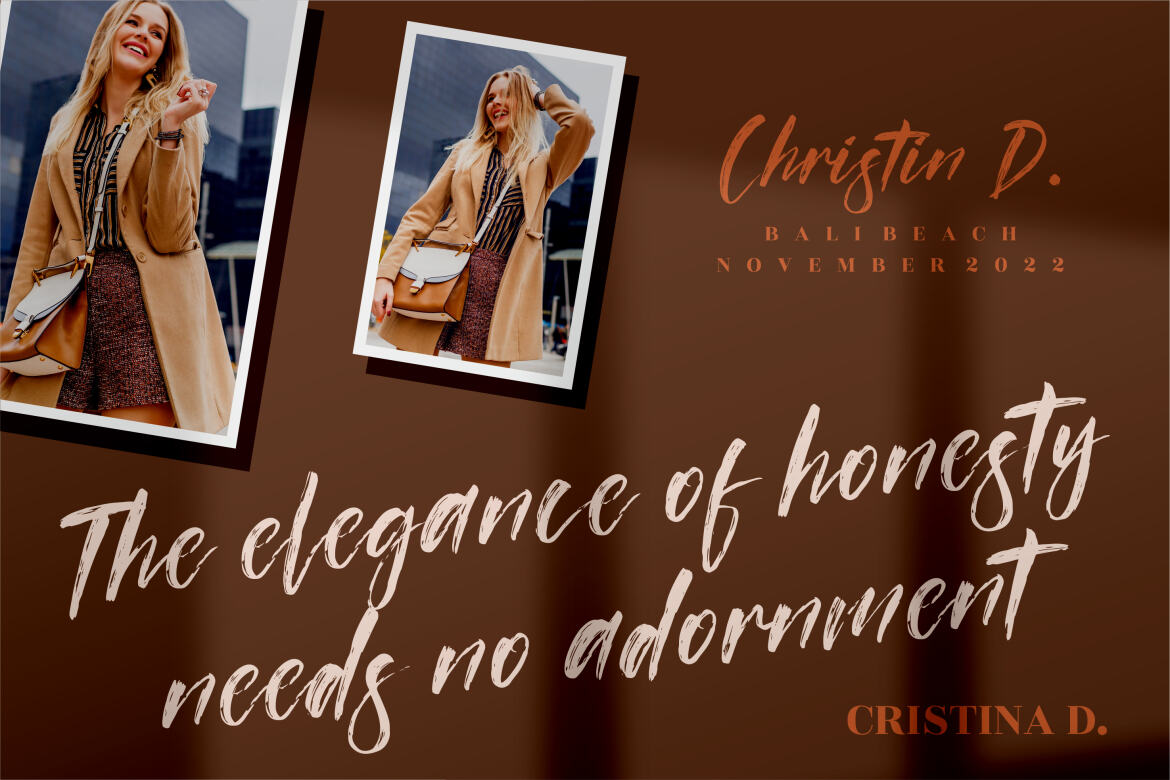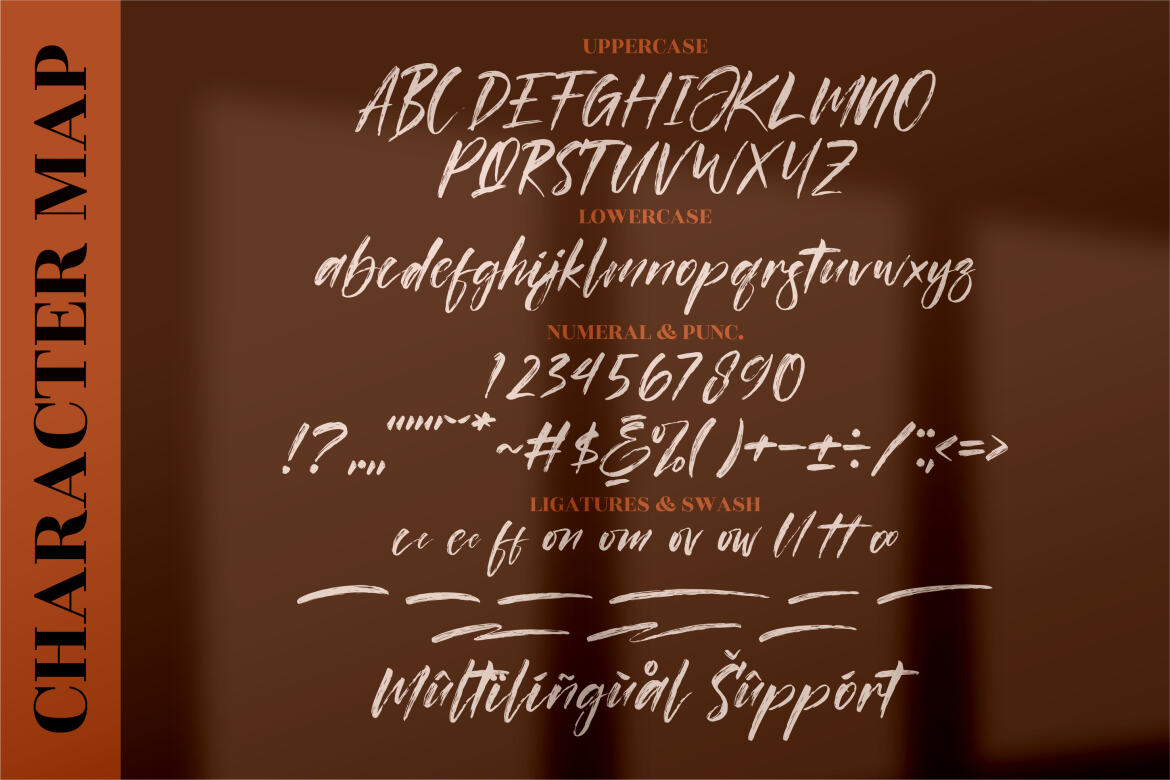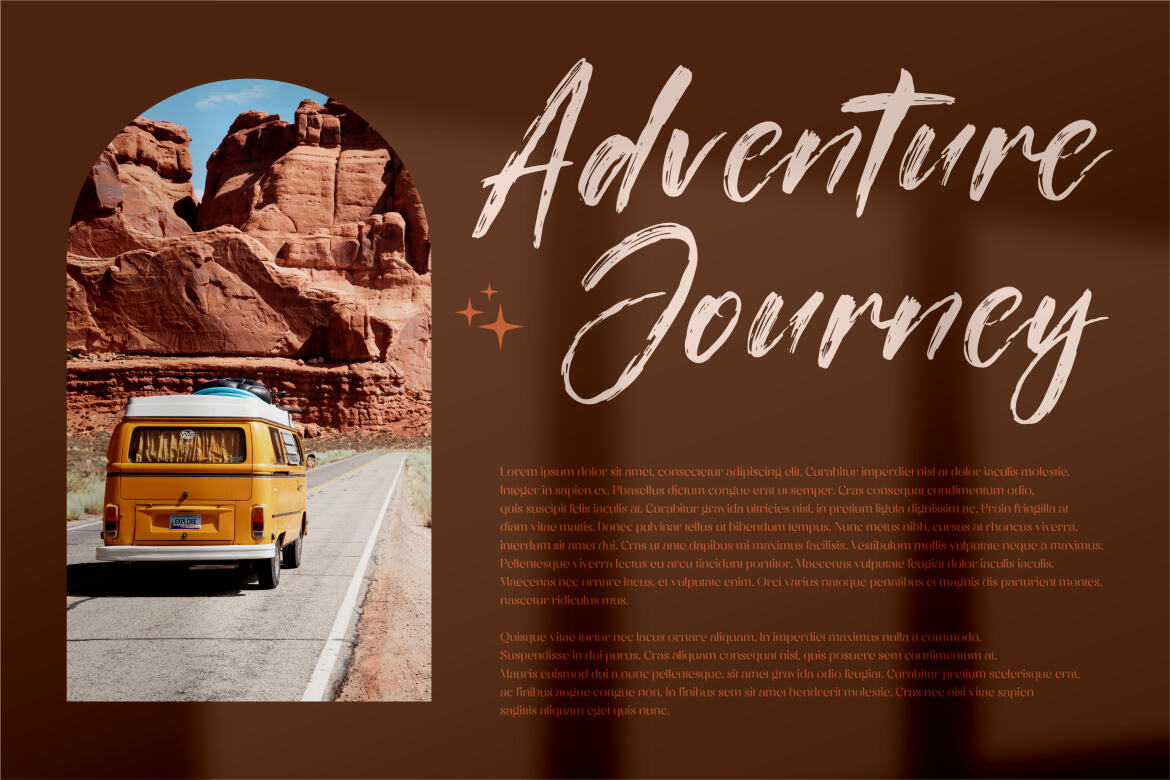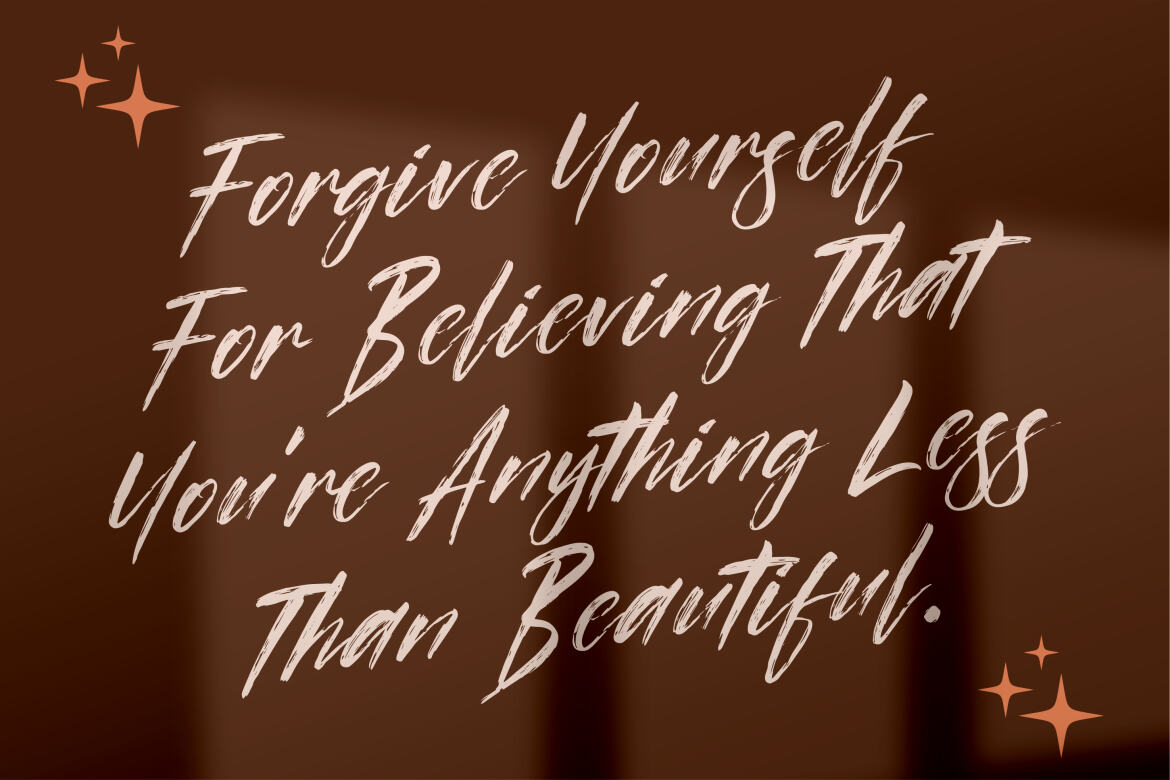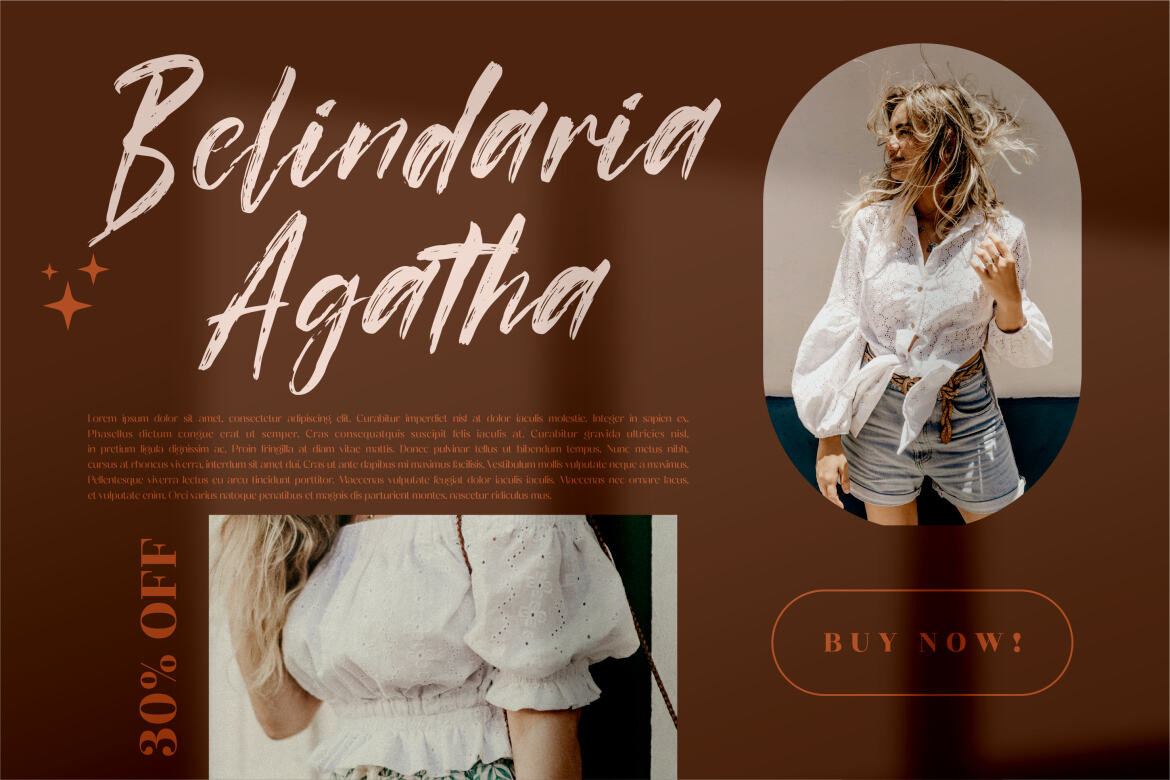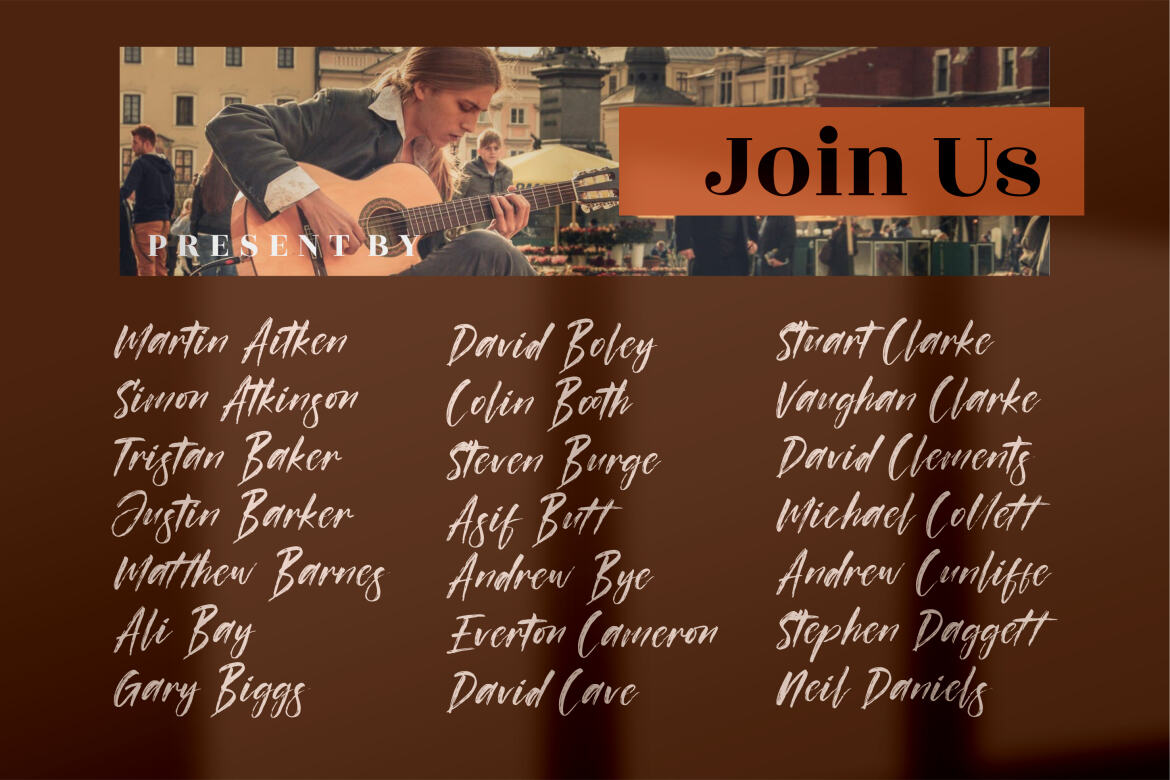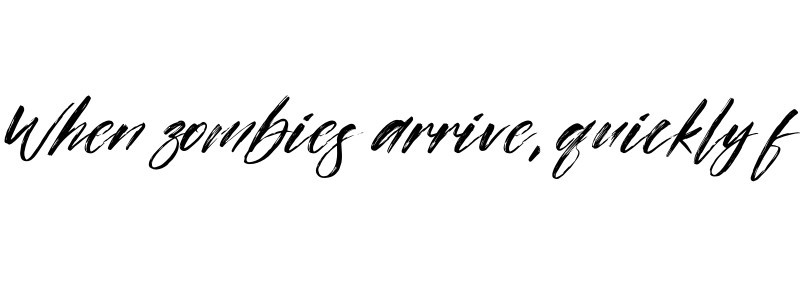
Brother - FREE Handwritten Brush Font
Brother - Handwritten Brush Font, from Perspectype Studio, is a handwritten font, suitable for any projects such as: logos, branding projects, homeware designs, product packaging, mugs, quotes, posters, shopping bags, t-shirts, book covers, name card, invitation cards, greeting cards, label, photography, watermark, special events, and all your other luxury projects that need a handwritten taste.